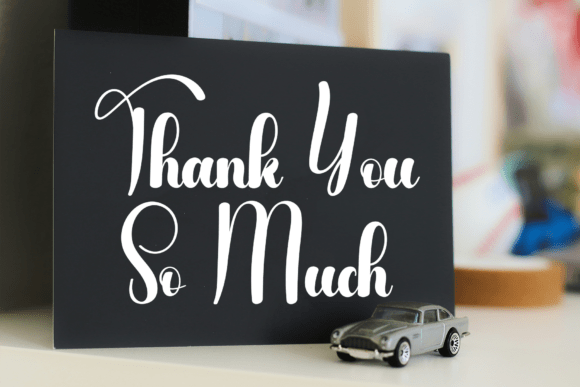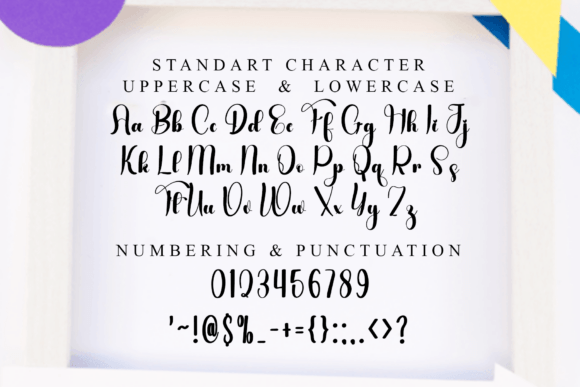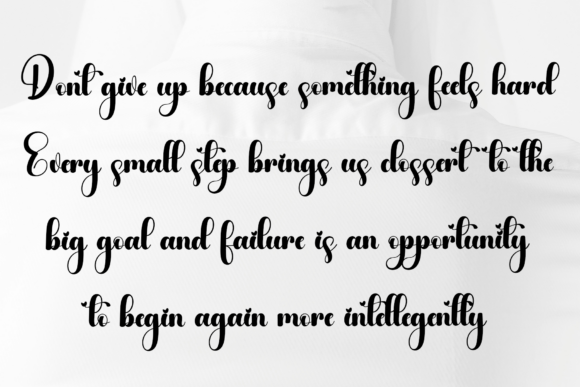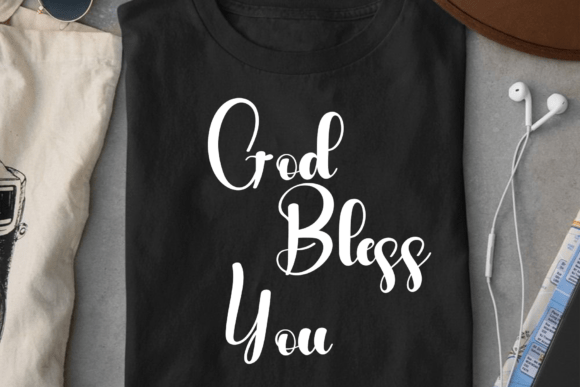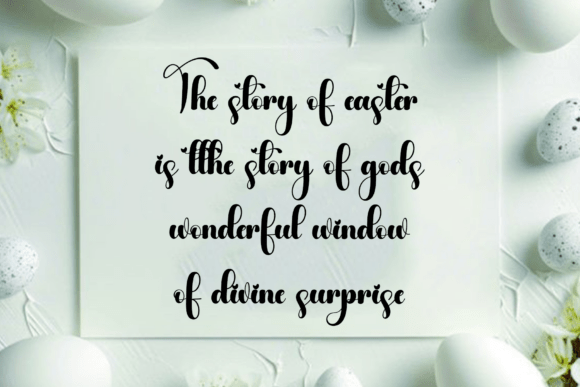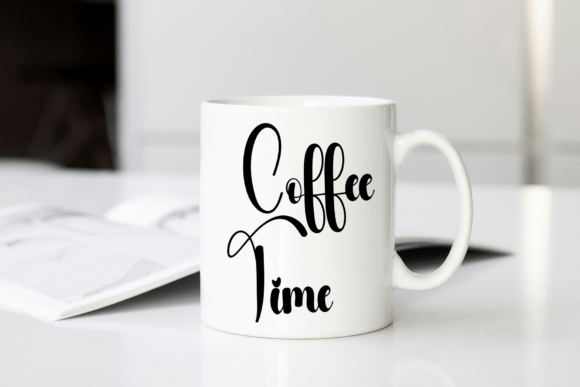
Biscuit Chalista Font: Add a Touch of Warmth and Friendliness to Your Designs
Are you looking for a font that can add a personal touch to your designs? Look no further than the Biscuit Chalista Font. This casual and creative font is perfect for designers and crafters who want to infuse their work with warmth and friendliness. In this article, we’ll take a closer look at the Biscuit Chalista Font, its features, and how you can use it to elevate your designs.
What is Biscuit Chalista Font?
Biscuit Chalista Font is a hand-drawn font that boasts round, playful strokes, creating a relaxed and approachable feel. Its charming aesthetic is perfect for personal projects, invitations, social media graphics, and any design that requires a touch of warmth and personality. The font’s casual and creative vibe makes it an excellent choice for designers who want to add a unique touch to their work.
Key Features of Biscuit Chalista Font
- Hand-Drawn Aesthetic: The font’s hand-drawn aesthetic adds a fun and unique touch to any design, making it perfect for personal projects and crafts.
- Playful Strokes: The font’s round, playful strokes create a relaxed and approachable feel, making it ideal for designs that require a friendly and approachable tone.
Use Cases for Biscuit Chalista Font
The Biscuit Chalista Font is versatile and can be used in various design projects, including:
- Personal Projects: Use the Biscuit Chalista Font to add a personal touch to your personal projects, such as scrapbooking, journaling, and crafting.
- Invitations: The font’s friendly and approachable vibe makes it perfect for creating invitations for parties, weddings, and other special events.
- Social Media Graphics: Use the Biscuit Chalista Font to create engaging social media graphics that require a touch of warmth and personality.
- Crafts: The font is also suitable for various craft projects, such as card making, DIY signs, and other handmade crafts.
Benefits of Using Biscuit Chalista Font
Using the Biscuit Chalista Font in your designs comes with several benefits, including:
- Unique Touch: The font’s hand-drawn aesthetic adds a unique touch to your designs, setting them apart from others.
- Emotional Connection: The font’s warm and friendly vibe helps create an emotional connection with your audience, making your designs more relatable and engaging.
- Versatility: The Biscuit Chalista Font is versatile and can be used in various design projects, making it a great addition to your font library.
Tips for Using Biscuit Chalista Font
Here are some tips for using the Biscuit Chalista Font effectively in your designs:
- Pair with Other Fonts: Experiment with pairing the Biscuit Chalista Font with other fonts to create a unique and visually appealing combination.
- Use in Headings and Titles: Use the Biscuit Chalista Font in headings and titles to add a touch of warmth and personality to your designs.
- Experiment with Colors: Experiment with different colors to find the perfect combination that complements the font’s friendly and approachable vibe.
The Biscuit Chalista Font is a great addition to any designer’s font library. Its casual and creative vibe, hand-drawn aesthetic, and playful strokes make it perfect for personal projects, invitations, social media graphics, and crafts. With its standard PUA Encoded glyphs, the font is compatible with various application engines, making it easy to use in your designs. Whether you’re a designer or crafter, the Biscuit Chalista Font is sure to add a touch of warmth and friendliness to your work.